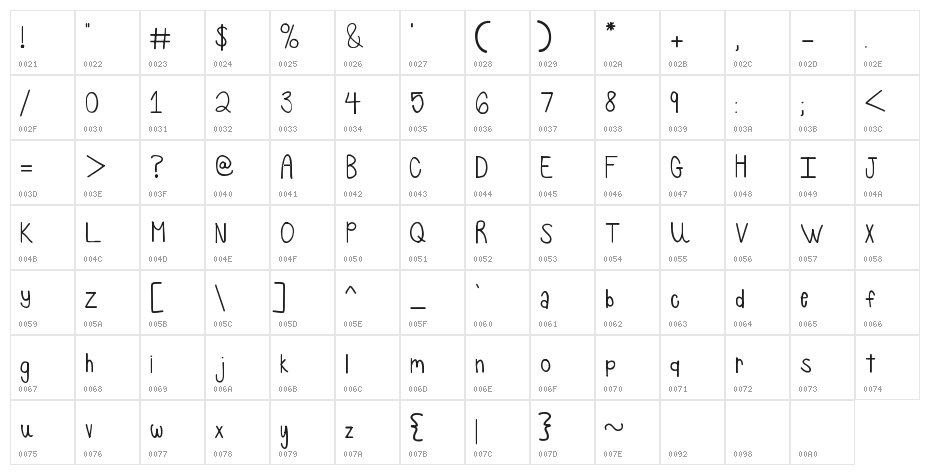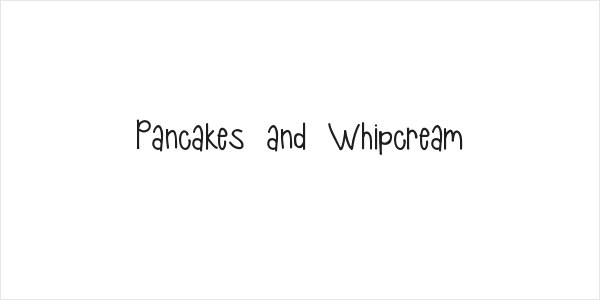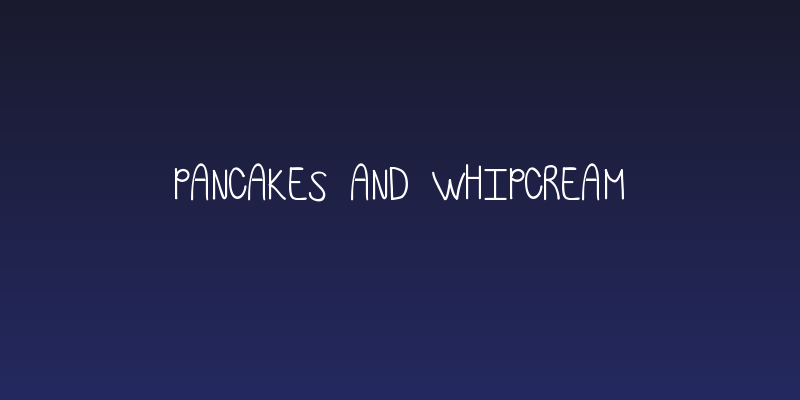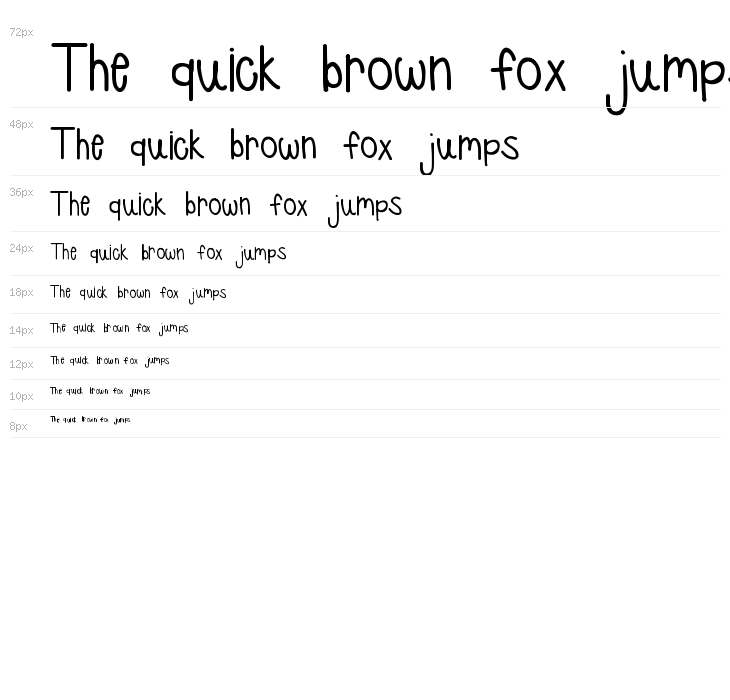
Pancakes and Whipcream Font
Pancakes and Whipcream Description
This playful and whimsical font features a handwritten style with a casual and friendly appearance. The letters are slightly rounded with a consistent stroke width, giving it a uniform look. The uppercase letters are tall and narrow, while the lowercase letters maintain a similar style with a slight slant, adding to the informal feel. The numerals are clear and easy to read, matching the overall style of the alphabet. Special characters are included, maintaining the same playful and approachable design. This font exudes a sense of fun and creativity, making it ideal for projects that require a personal touch.